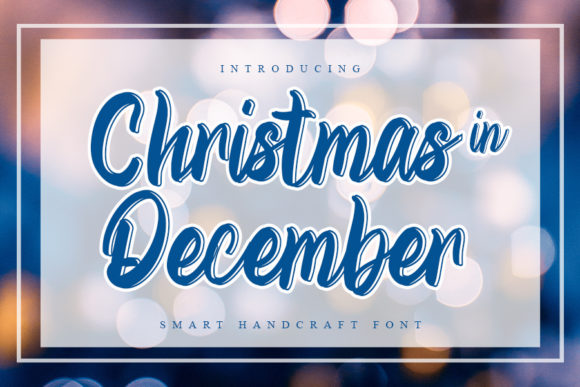
Unleash the magic of Christmas In December, a mesmerizing cursive handwritten font family, meticulously crafted to capture the warmth and charm of the holiday season. Bathed in the spirit of festivity, this script font exudes elegance and sophistication, making it the perfect choice for your creative expressions.
With its enchanting flow and graceful strokes, Christmas In December dances across your designs, adding a touch of whimsical playfulness. Its unique, carefully designed characters are a testament to the font's exceptional quality, ensuring that your creations stand out from the crowd.
Immerse yourself in a world of creative possibilities as you explore the endless applications of Christmas In December. From wedding invitations to thank you cards, from logos to greeting cards, this font family seamlessly adapts, adding a touch of class to every project.
Let your imagination soar as you craft stunning visuals with Christmas In December. Its versatility shines through, whether you're creating marketing materials, social media posts, or personalized gifts. The font's inherent charm effortlessly elevates your designs, leaving a lasting impression on your audience.
With Christmas In December, the magic of the holidays comes alive in your digital creations. Its enchanting aura captivates and inspires, evoking a sense of wonder and joy. Discover the limitless potential of this font family and let your creativity flourish.